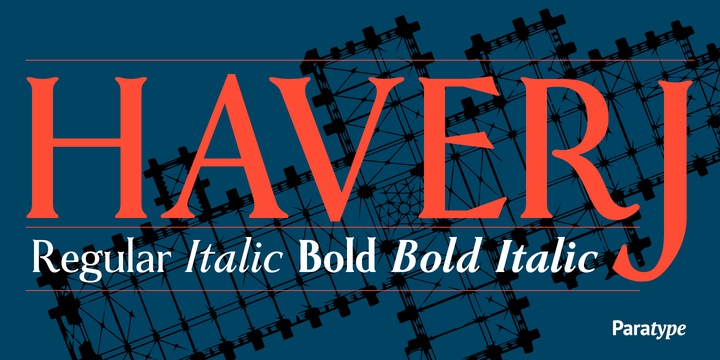
Haverj Font
Haverj Font is perfect for harvest festival marketing, agricultural cooperative branding, farm-to-table restaurant menus, organic produce packaging, rural community publications, seasonal farmers market signage, agricultural equipment labeling, and countryside tourism materials where agricultural heritage and harvest abundance are celebrated.
What makes Haverj Font so exciting is its bountiful ability to capture the essence of agricultural prosperity and harvest celebration through robust letterforms that embody the satisfaction and abundance of successful farming while maintaining excellent readability for rural communications. The hearty character design reflects the hard work and seasonal rewards that define authentic agricultural communities.
The Haverj Font family includes light, regular, medium, bold, and condensed weights, with harvest-inspired decorative elements and agricultural ornaments that provide comprehensive tools for creating authentic farming branding and rural community design systems.
The font's sturdy character construction and seasonal proportions create immediate associations with successful harvests and agricultural productivity. Each letterform has been designed to evoke the satisfaction and abundance that defines successful farming operations and thriving rural communities.
Haverj Font excels in creating memorable agricultural communications that celebrate farming success and rural community values. The typeface's harvest character makes it ideal for farm cooperatives, agricultural businesses, and rural organizations targeting audiences who appreciate farming heritage and seasonal abundance.
From grain elevators to harvest festivals, this font brings agricultural credibility that resonates with farming communities and consumers who value rural traditions and agricultural productivity. The versatile design maintains its harvest character across both traditional farming applications and modern digital agricultural platforms.